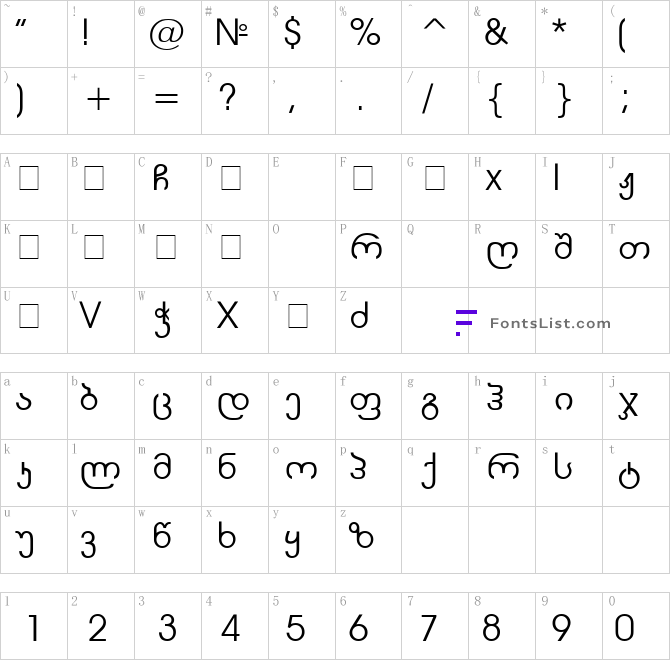
- Font Name:Avaza
Avaza.ttf is a very beautiful artistic font, Avaza.ttf is widely used in the design and printing of various books and pictures,Avaza.ttf has a strong visual impact,Avaza.ttf is a commonly used font in newspapers, magazines and books, and is used in posters, e-commerce Poster design, store design, logo design, font design and other fields.Avaza.